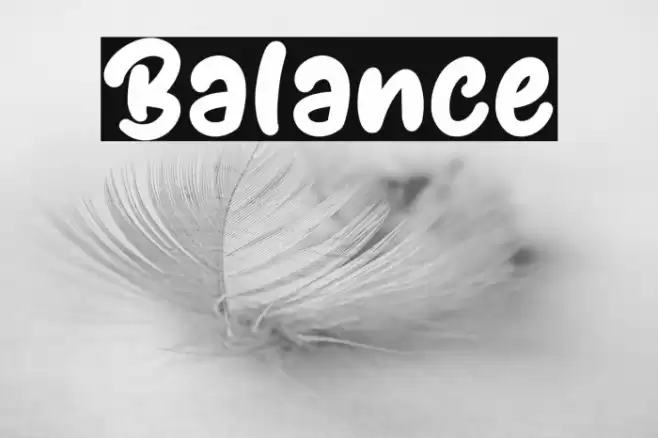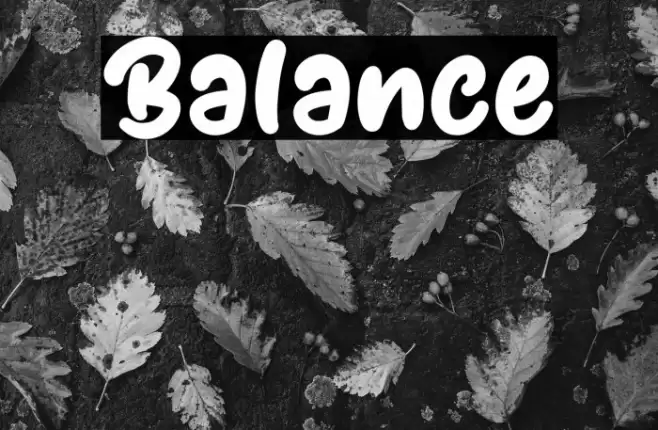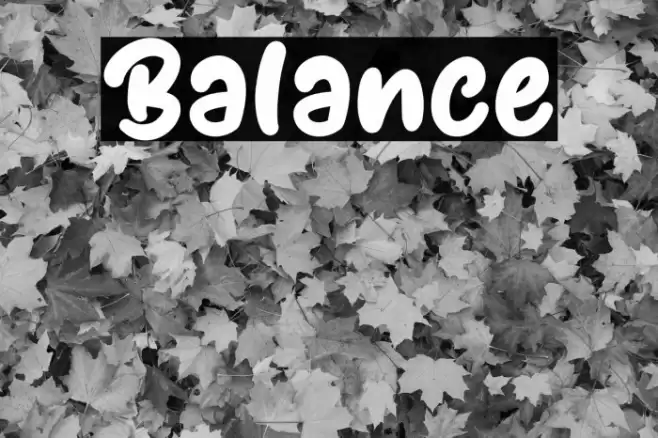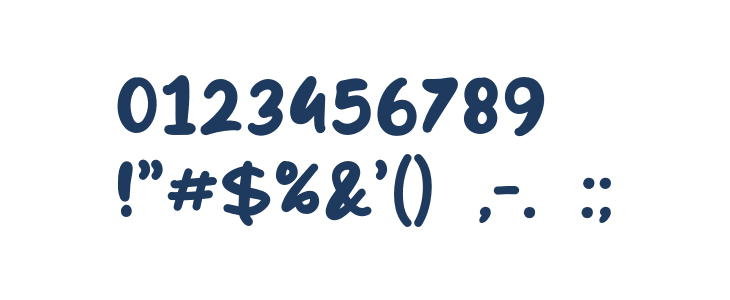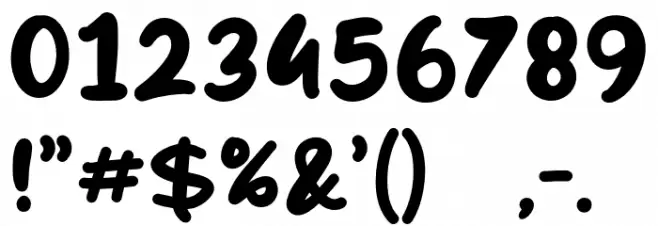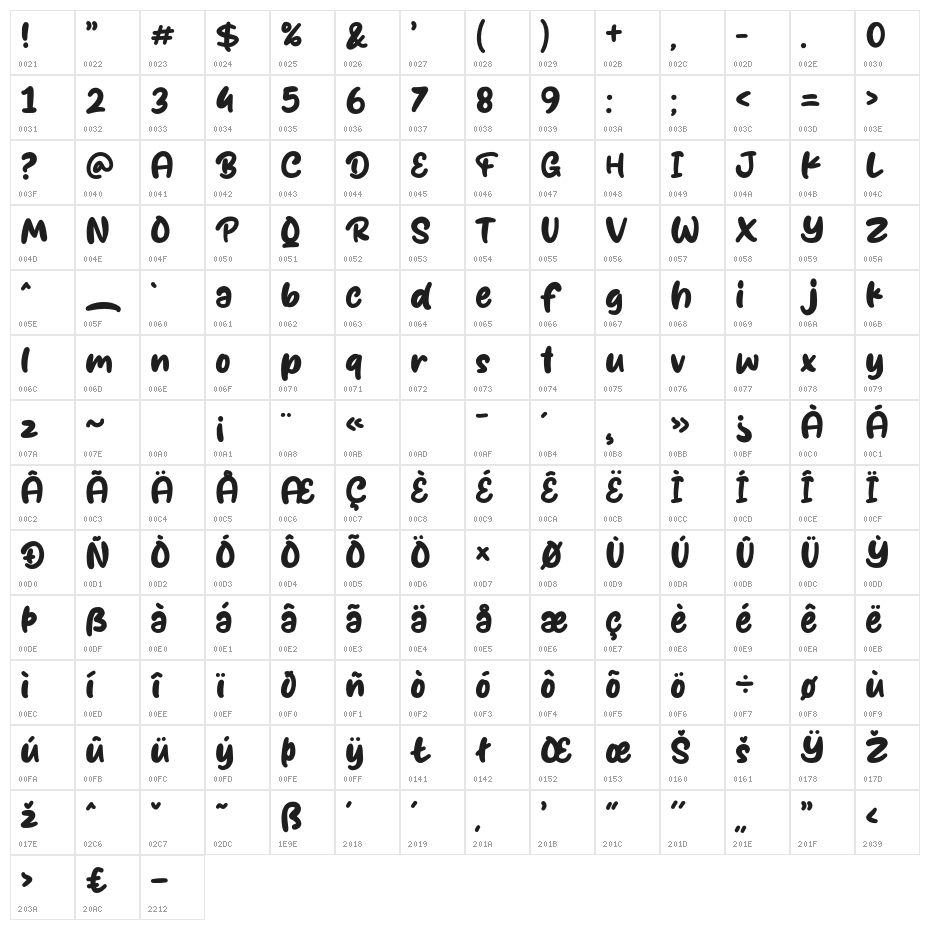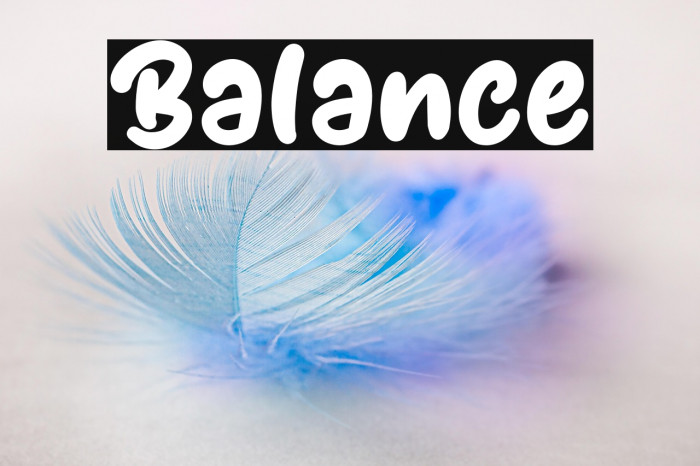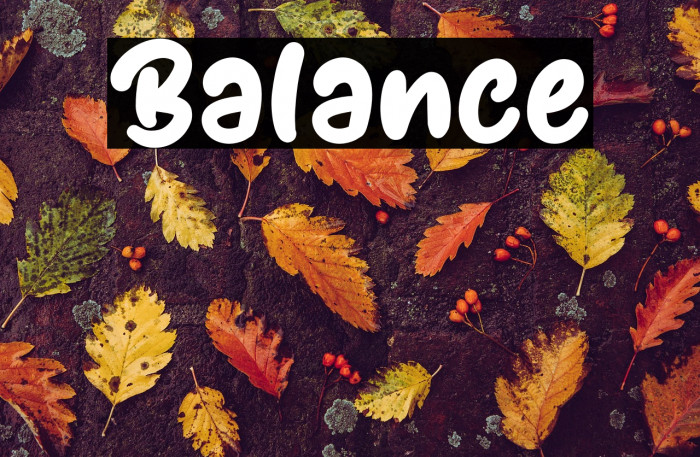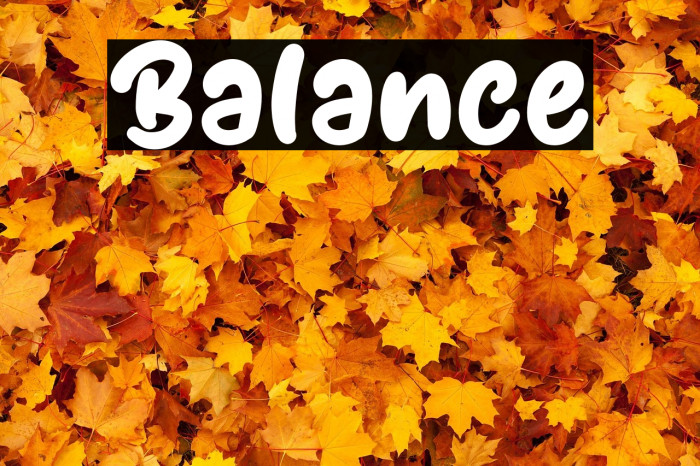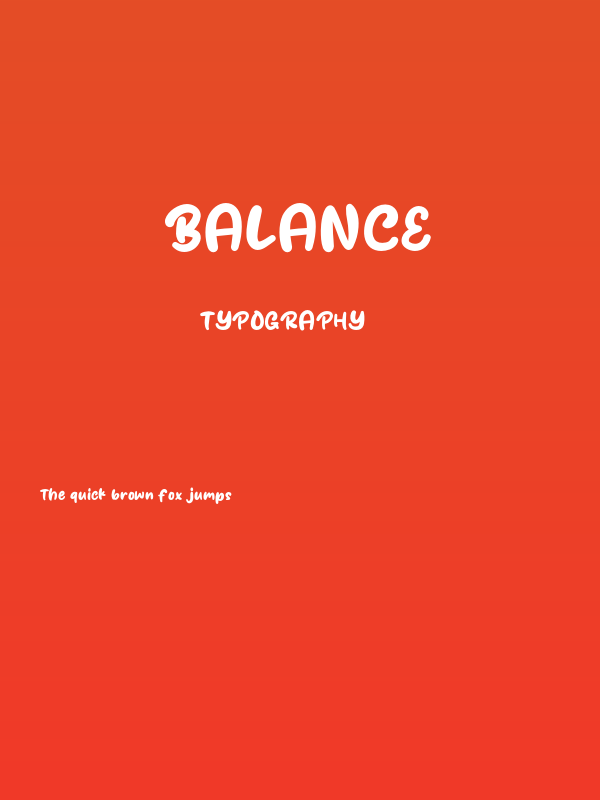
Balance Font
Balance Description
This playful and bold font features rounded, smooth edges and a handwritten style that exudes a sense of fun and creativity. The letters are thick and have a consistent weight throughout, giving them a strong presence on the page. The uppercase and lowercase characters maintain a uniform style, with slight variations that add to the font's charm. The numbers and special characters are equally bold and rounded, ensuring a cohesive look across all text elements. This font is perfect for projects that require a touch of whimsy and personality, making it ideal for creative and informal designs.
A bold, playful handwritten font with rounded edges and a consistent weight from Uncategorized fonts.
- Proposed Projects: Ideal for children's books, playful branding, greeting cards, and creative posters.
- Overall Style: Playful